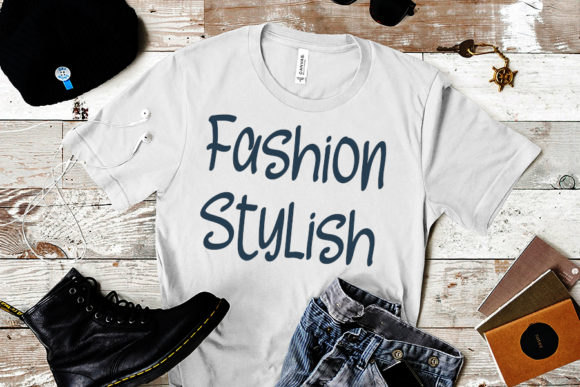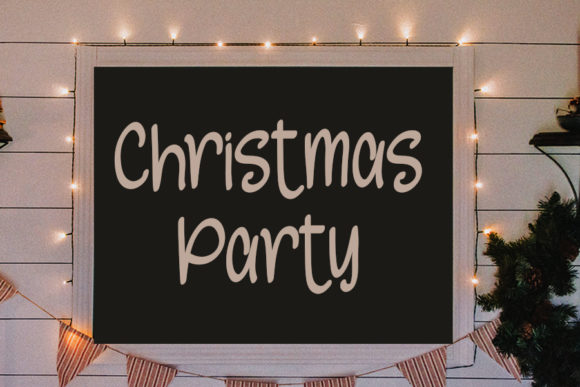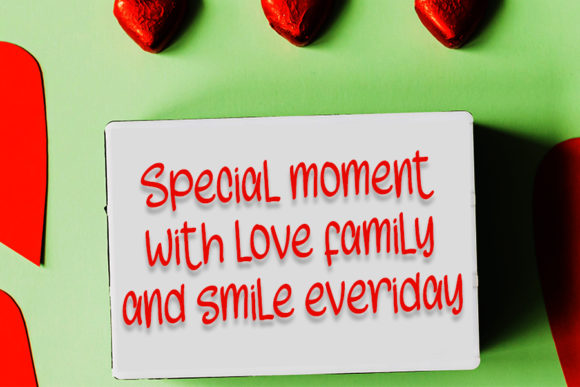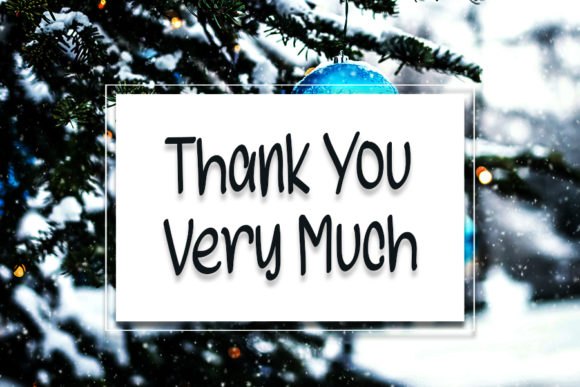
Introducing Afternoon Christmas Font: A Modern Handwritten Delight for Your Holiday Projects
Are you looking for a unique and festive font to elevate your holiday designs? Look no further than the Afternoon Christmas Font, a modern handwritten font that’s perfect for creating a wide range of projects, from flyers and mockups to logos and banners. In this article, we’ll dive into the features and benefits of this versatile font, and explore how you can use it to add a touch of personality to your holiday creations.
What is Afternoon Christmas Font?
Afternoon Christmas Font is a modern handwritten font that’s specifically designed to capture the spirit of the holiday season. With its flowing, cursive lines and whimsical charm, this font is sure to add a touch of warmth and personality to any project. Whether you’re creating a festive flyer, a holiday logo, or a merry banner, Afternoon Christmas Font is the perfect choice.
Key Features of Afternoon Christmas Font
- Modern Handwritten Style: Afternoon Christmas Font boasts a fresh, modern look that’s perfect for designers and crafters who want to create unique and eye-catching projects.
- Versatile: This font is suitable for a wide range of projects, from digital designs to print materials, and can be used for both personal and commercial purposes.
- Easy to Read: Despite its whimsical nature, Afternoon Christmas Font is surprisingly easy to read, making it perfect for creating titles, headings, and body text.
- Scalable: This font is designed to look great at any size, from small captions to large headlines.
How to Use Afternoon Christmas Font in Your Projects
Afternoon Christmas Font is an incredibly versatile font that can be used in a wide range of projects. Here are a few ideas to get you started:
- Holiday Flyers: Create eye-catching flyers for your holiday events, sales, or promotions using Afternoon Christmas Font.
- Mockups: Use this font to create stunning mockups for your holiday products or packaging.
- Logos: Add a touch of personality to your holiday logos with Afternoon Christmas Font.
- Banners: Create festive banners for your website, social media, or in-store displays using this font.
- Social Media Graphics: Use Afternoon Christmas Font to create engaging social media graphics, such as holiday-themed Facebook posts or Instagram stories.
Tips for Getting the Most Out of Afternoon Christmas Font
To get the most out of Afternoon Christmas Font, here are a few tips to keep in mind:
- Experiment with Colors: Afternoon Christmas Font looks great in a variety of colors, so don’t be afraid to experiment with different hues and combinations.
- Pair with Other Fonts: Try pairing Afternoon Christmas Font with other fonts to create a unique and visually appealing combination.
- Use it Sparingly: While Afternoon Christmas Font is perfect for headlines and titles, it’s best to use it sparingly in body text to avoid overwhelming the reader.